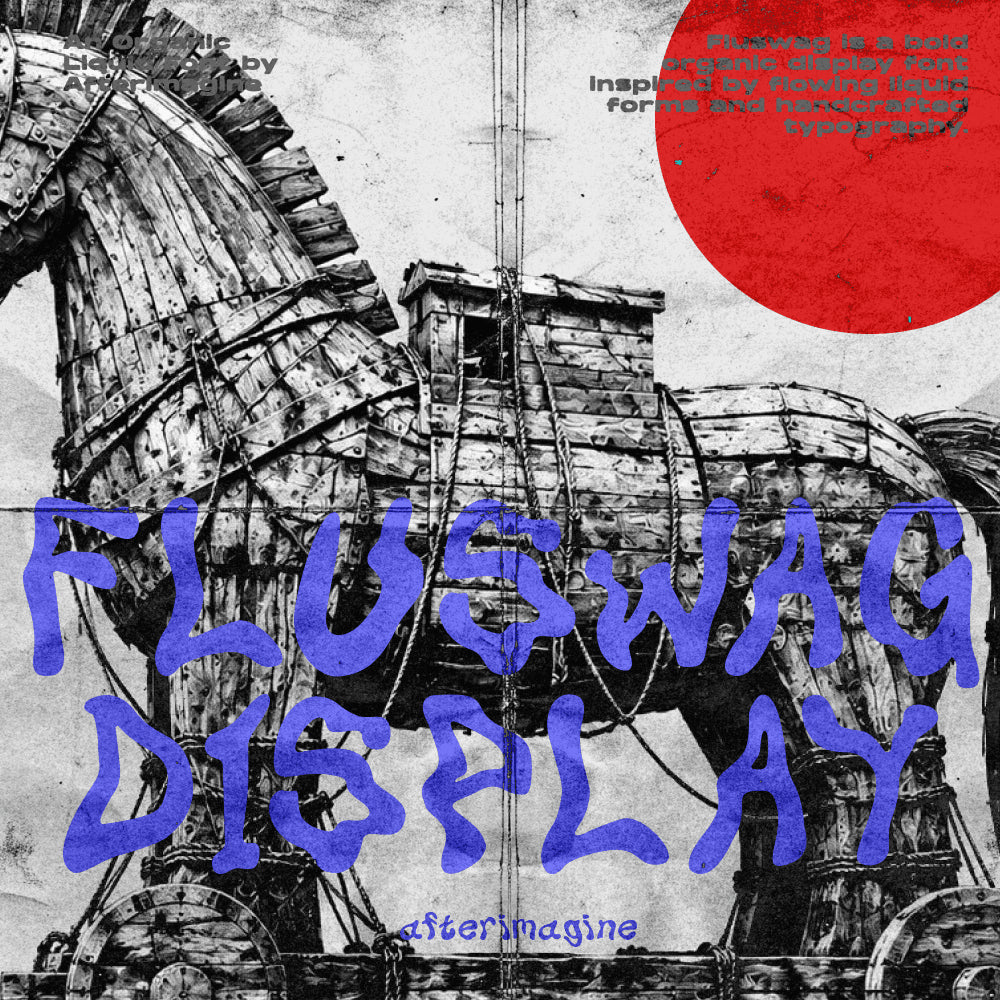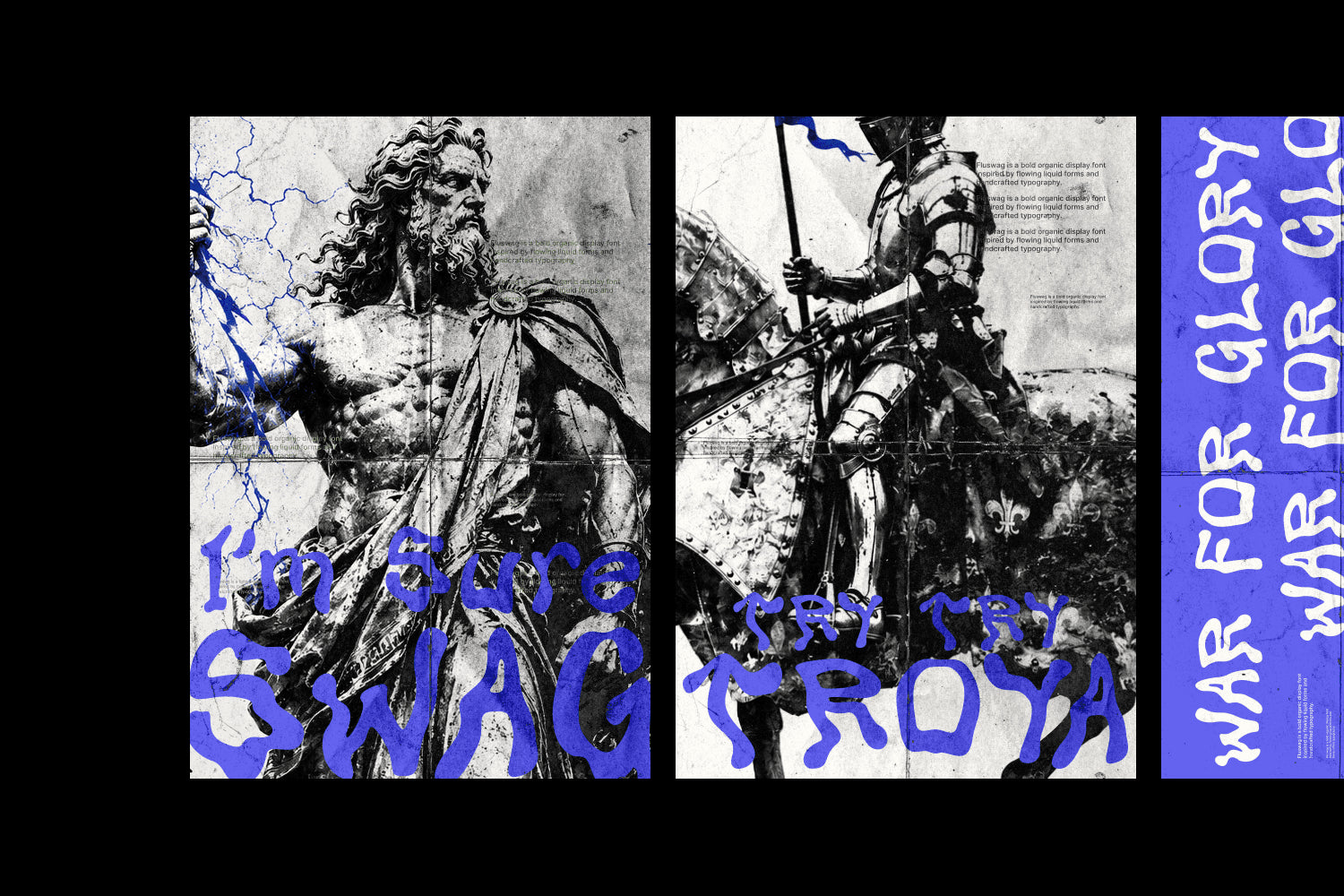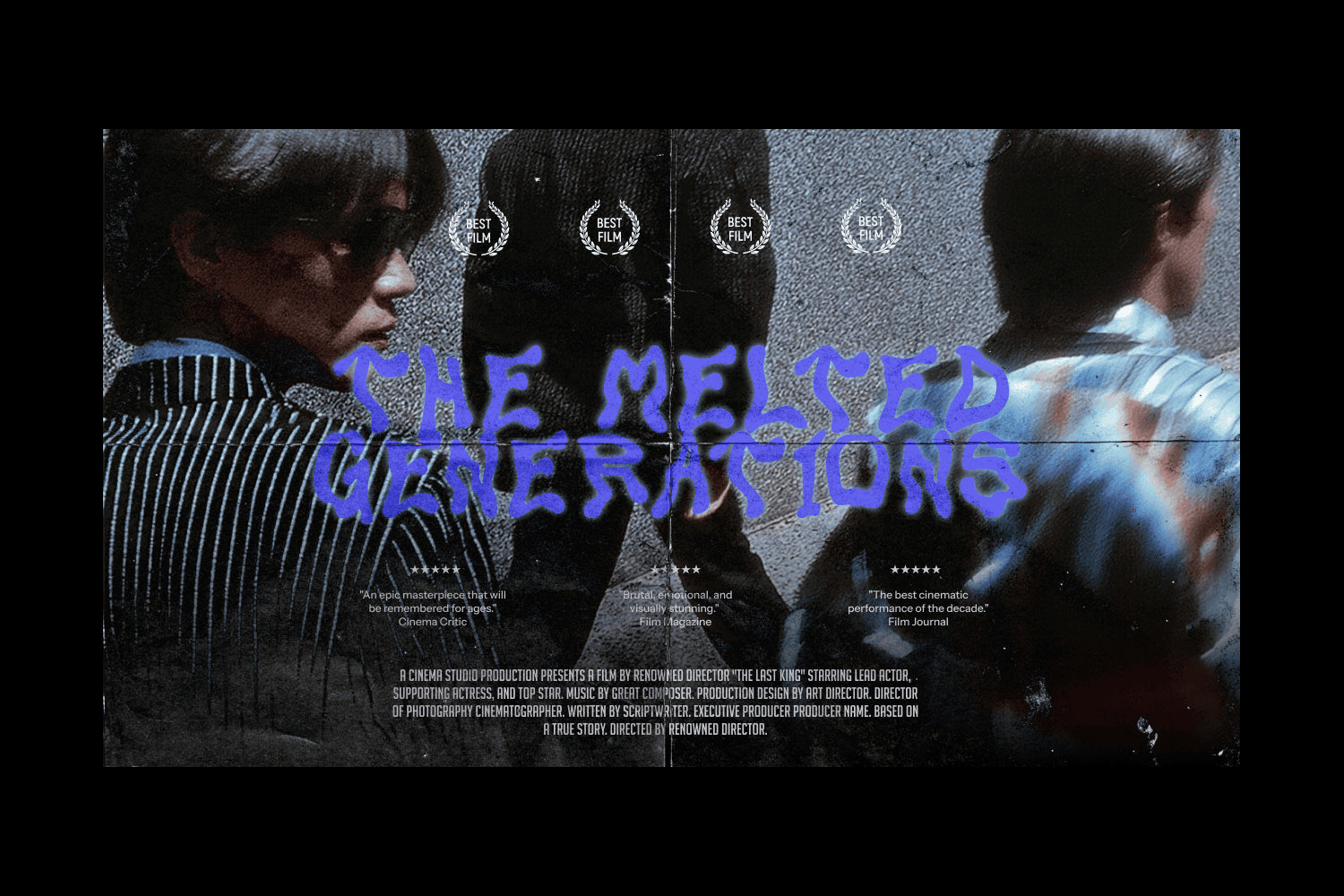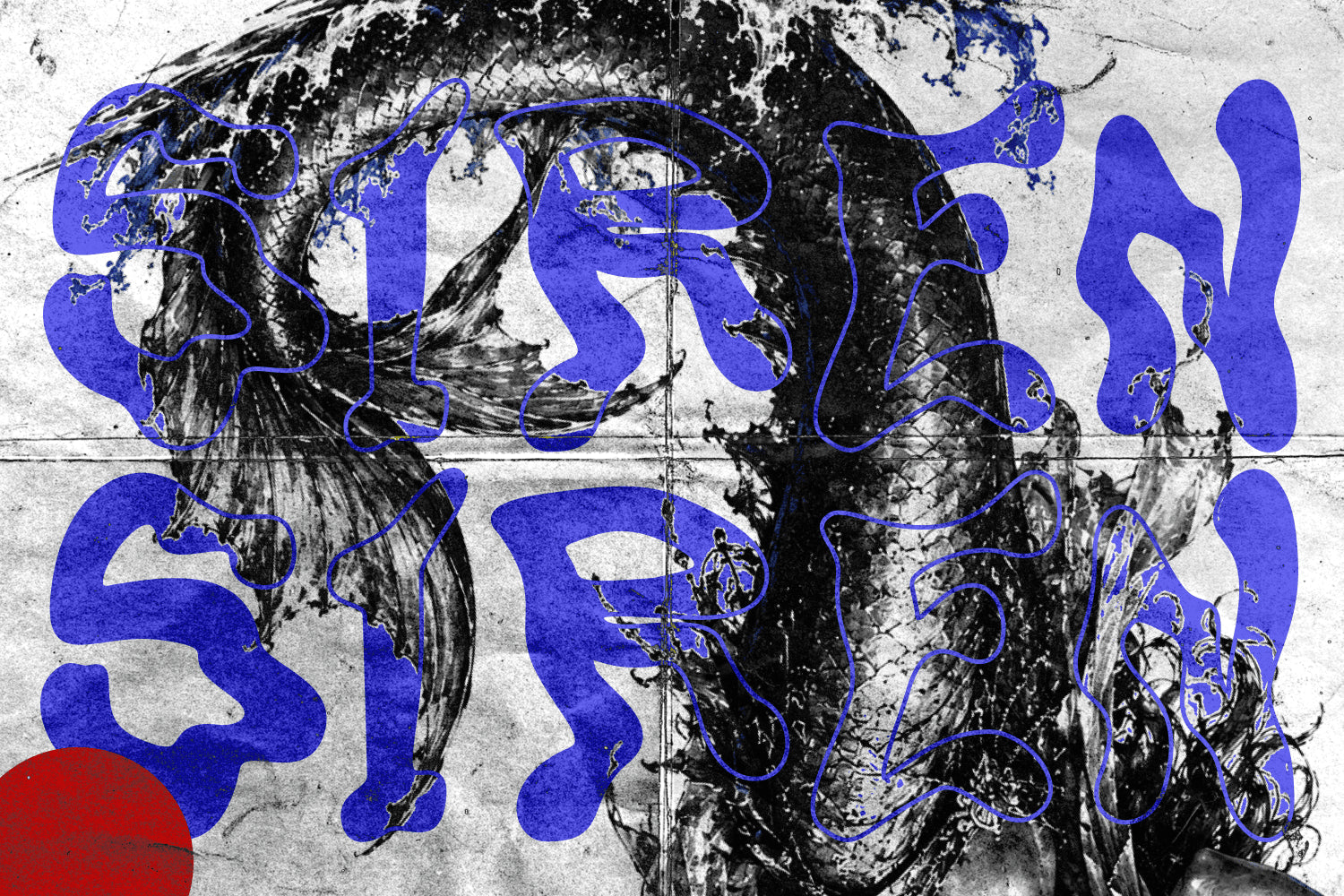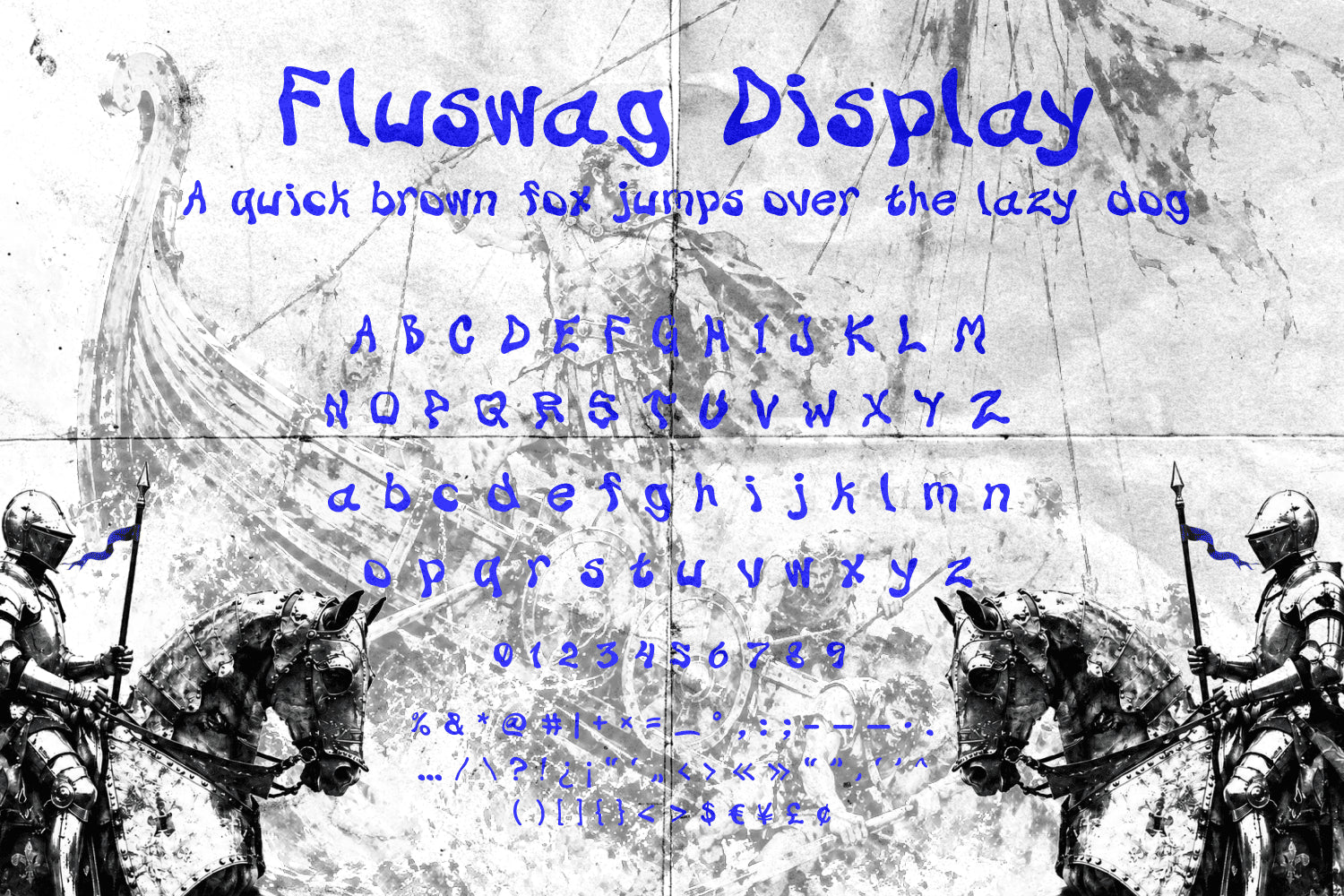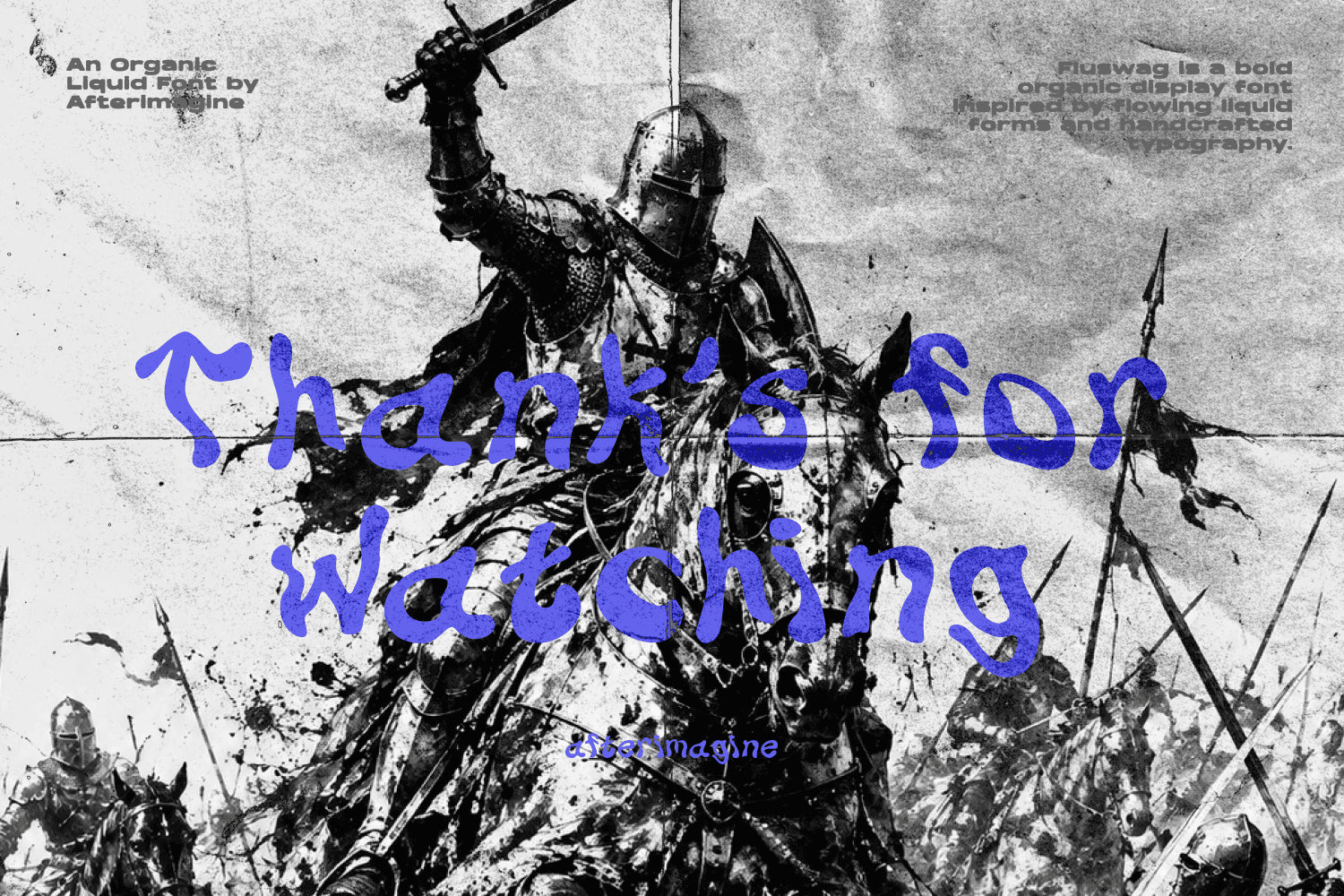
Fluswag Organic Liquid Display Font
Afterimagine
Fluswag is a bold organic display font inspired by flowing liquid forms, handcrafted lettering, and expressive typography. Its fluid silhouettes, irregular curves, and playful character create an unmistakable visual identity that instantly commands attention.
Perfect for branding, logos, posters, album covers, editorial layouts, streetwear graphics, packaging, social media, merchandise, and experimental design, Fluswag adds personality and movement to every composition. Whether you're creating a nostalgic retro aesthetic or a bold contemporary identity, this typeface delivers a unique handcrafted feel with strong visual impact.
Designed for creatives who want typography that breaks convention, Fluswag transforms ordinary headlines into memorable statement pieces.
Fluswag Organic Liquid Display Font is a bold, handcrafted typeface featuring fluid silhouettes and irregular curves. It includes uppercase characters, numbers, and punctuation in OTF, TTF, WOFF, and WOFF2 formats, providing a unique visual identity for various design projects.